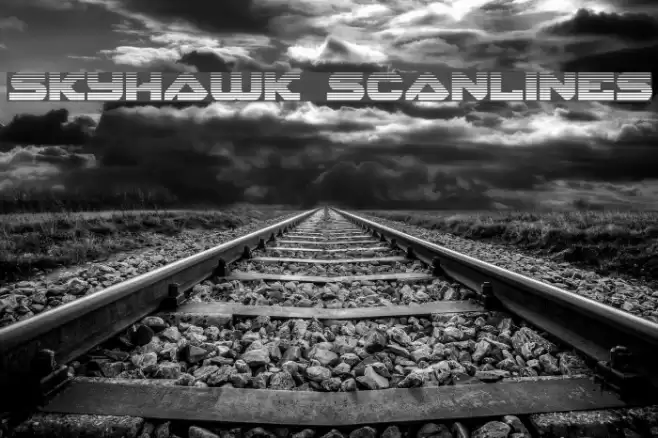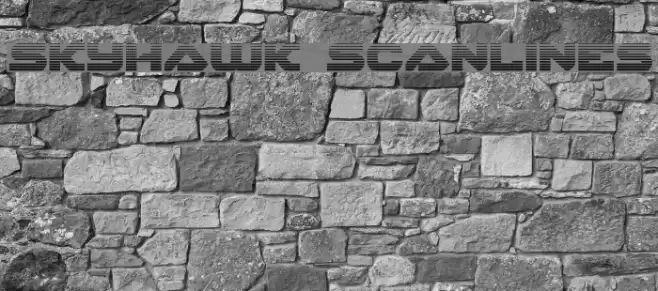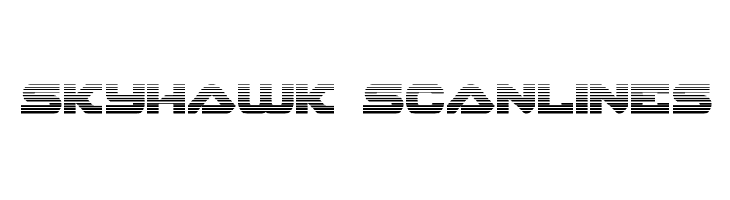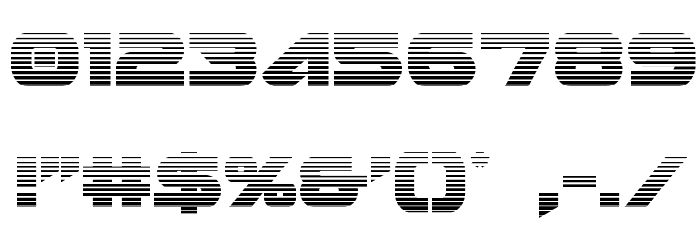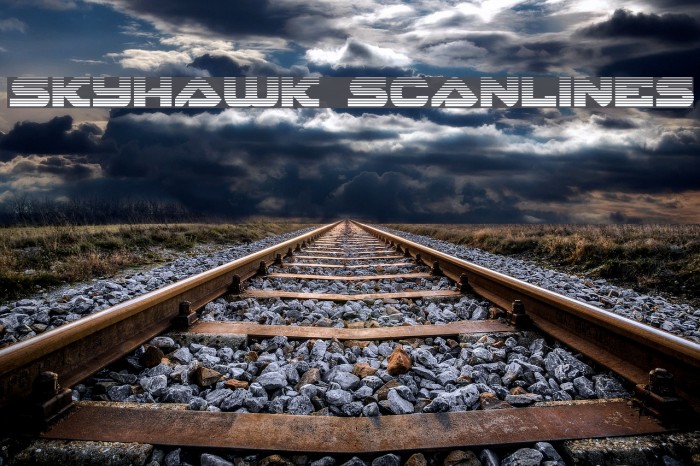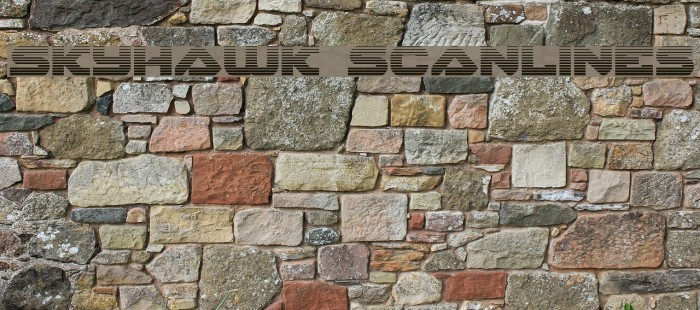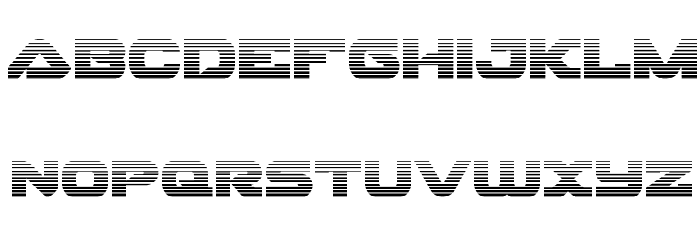
Skyhawk Scanlines Font
Skyhawk Scanlines Description
This font features a unique scanline effect, giving it a futuristic and digital appearance. Each character is composed of horizontal lines that create a sense of movement and modernity. The uppercase and lowercase letters maintain a consistent style, with clean, angular edges and a geometric structure. The numerals and special characters follow the same design principles, ensuring uniformity across all glyphs. This font is ideal for projects that require a tech-savvy and innovative look, such as digital interfaces, video game graphics, or sci-fi themed designs.
A futuristic font with a scanline effect, perfect for digital and tech-themed projects from Farsi fonts.
- Proposed Projects: Ideal for digital interfaces, video game graphics, sci-fi themed designs, and tech-related branding.